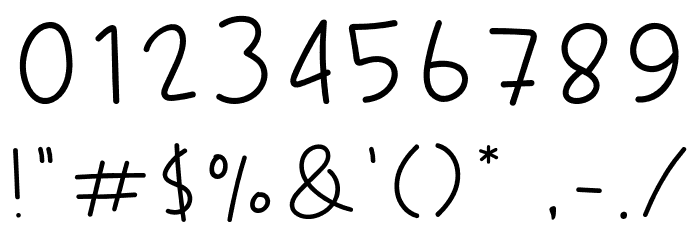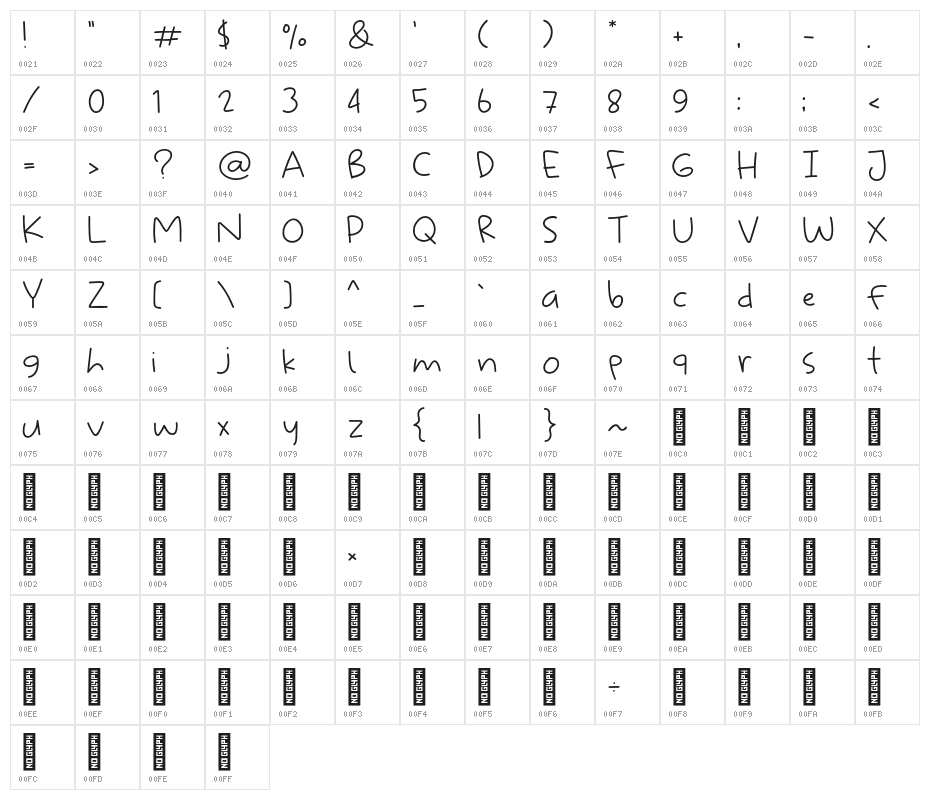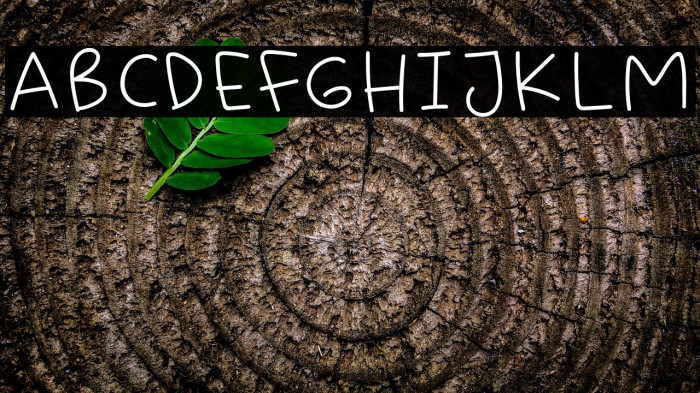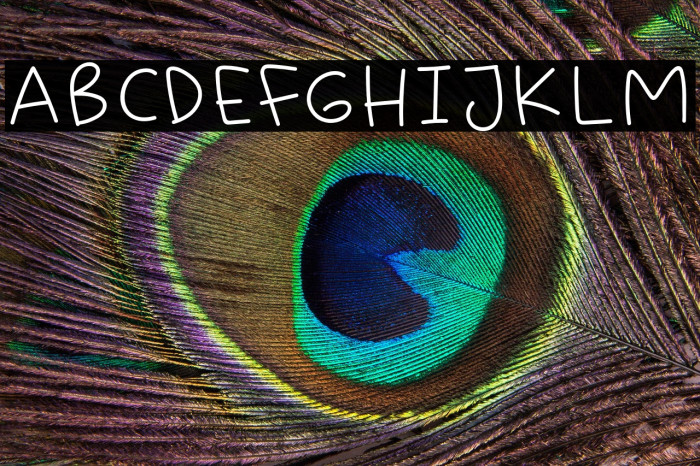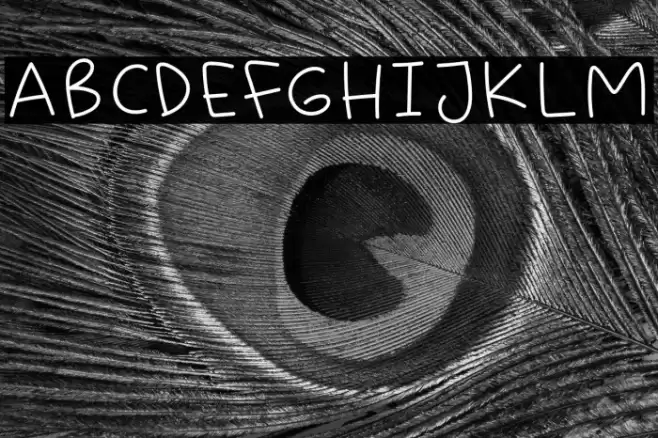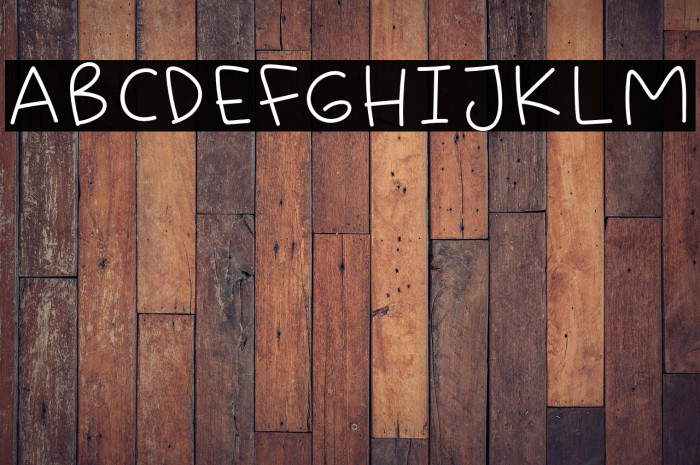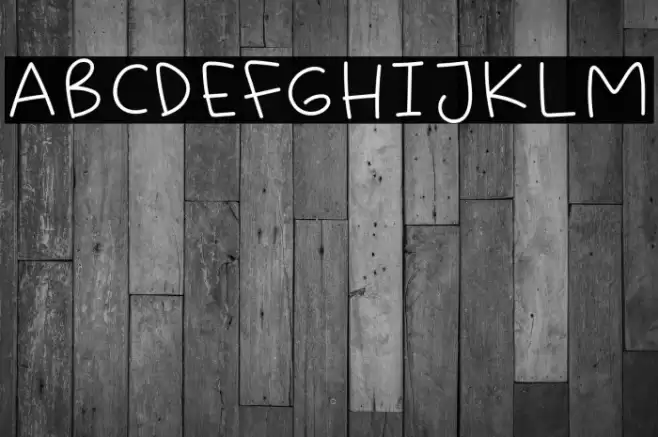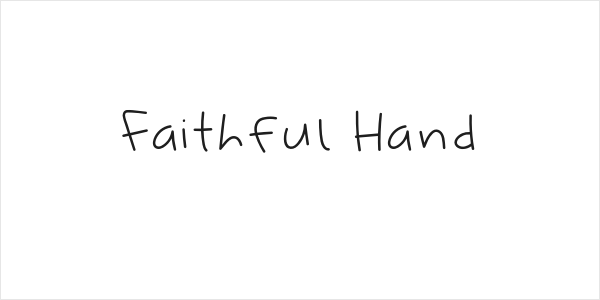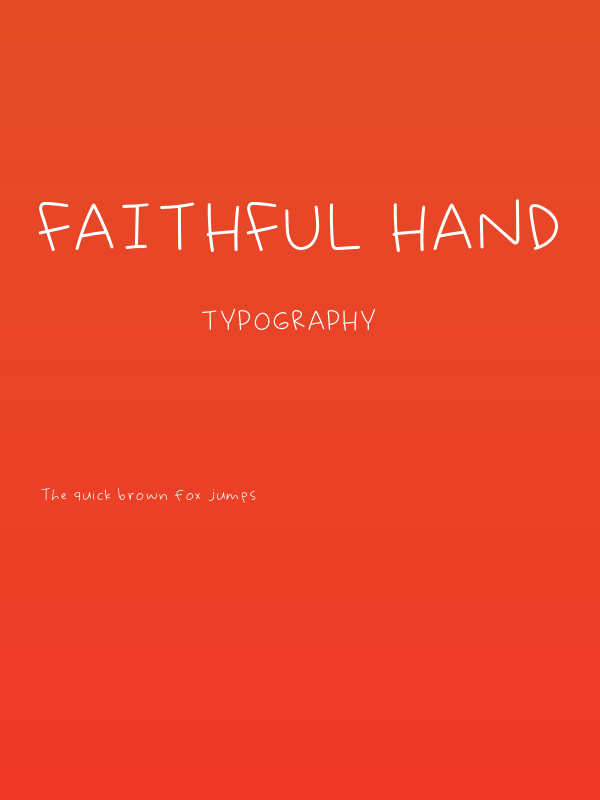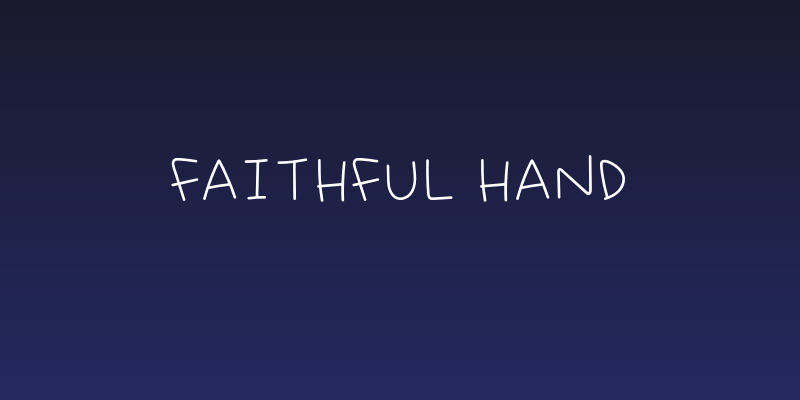
Faithful Hand Font
Faithful Hand Description
This font exudes a casual and approachable vibe, characterized by its handwritten style. The letters are slightly irregular, mimicking the natural flow of handwriting, which adds a personal touch to any text. The strokes are consistent in width, providing a uniform appearance while maintaining a playful and informal feel. The characters are well-spaced, ensuring readability even in longer texts. This font is versatile, suitable for projects that require a friendly and informal tone, such as personal blogs, children's books, or creative invitations.
| Proposed Projects | Ideal for personal blogs, children's books, creative invitations, and informal branding. |